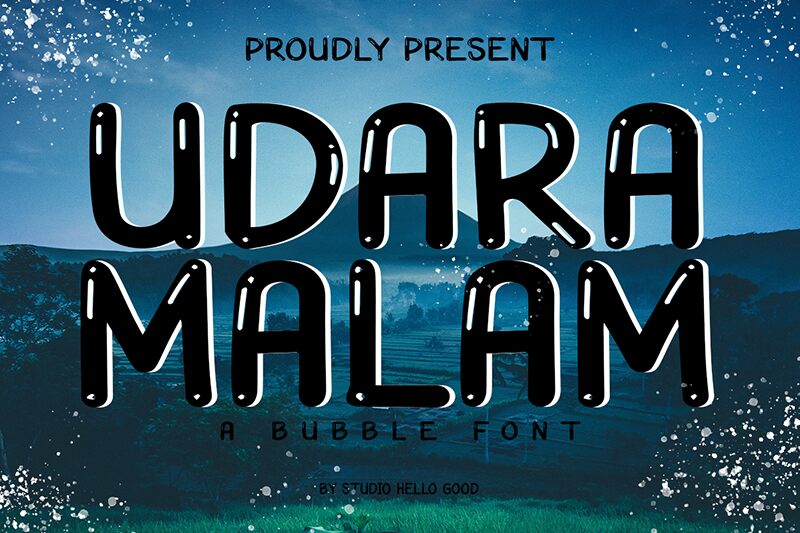
Udara Malam
Udara Malam font by Studio Hello Good is a free cartoon display font that leans into a juicy, hand-inked look. Thick, rounded strokes swell and taper like wet paint, with soft wobble in the curves that keeps it friendly and lively. The counters sit snug and glossy, giving letters a bubbly, almost sticker-like presence that pops without turning messy.
Using Udara Malam, headlines land with playful confidence-great for kids’ book covers, snack packaging, party invites, game titles, YouTube thumbnails, and cheerful logos. This free font thrives large, where its inky sheen and bouncy rhythm can breathe. Pair it with a clean geometric sans for captions, and keep letter spacing slightly loose to enhance the rounded, squishy feel.